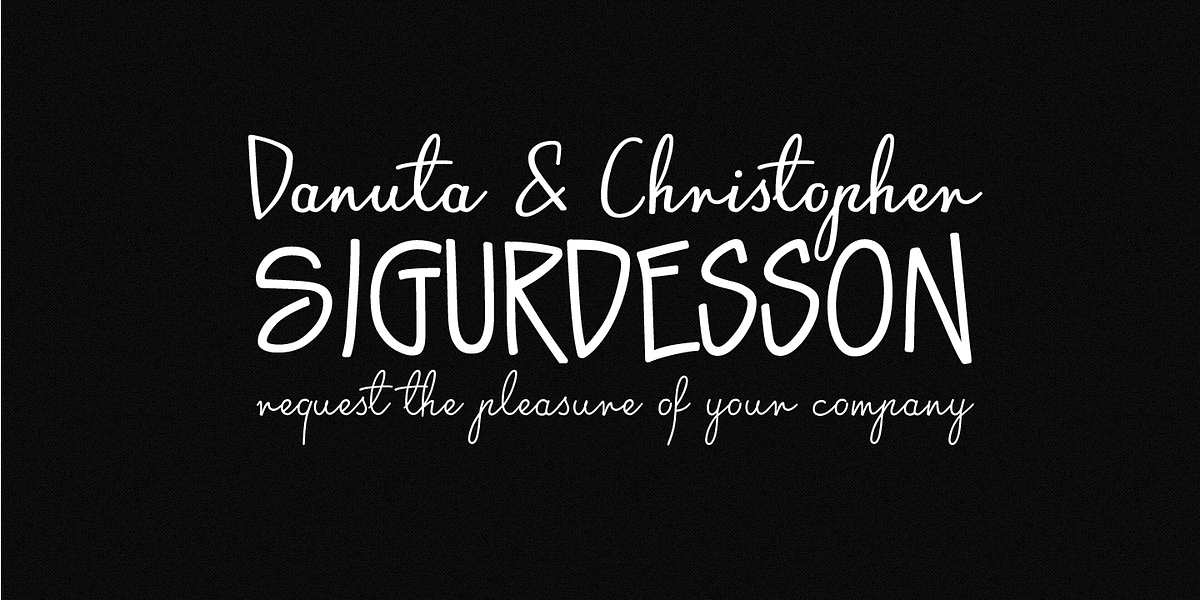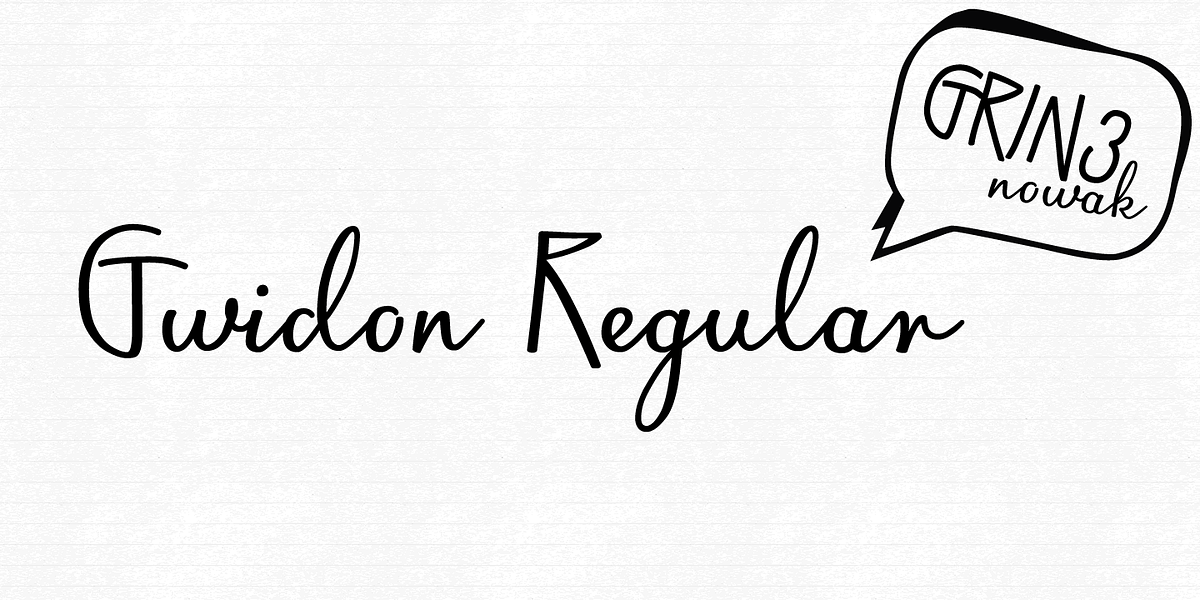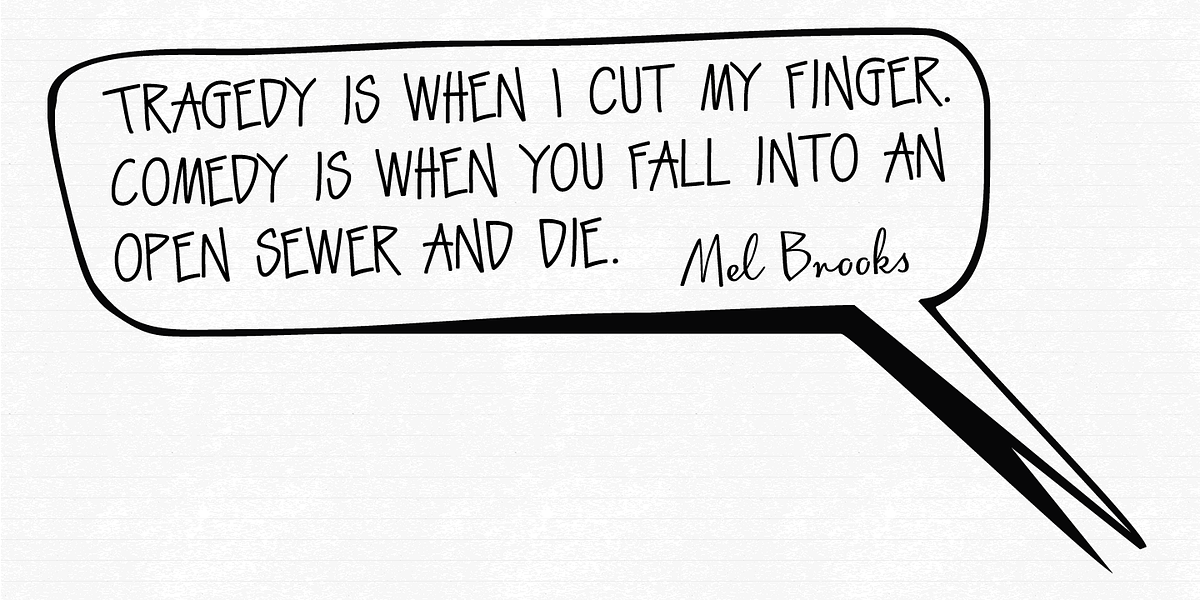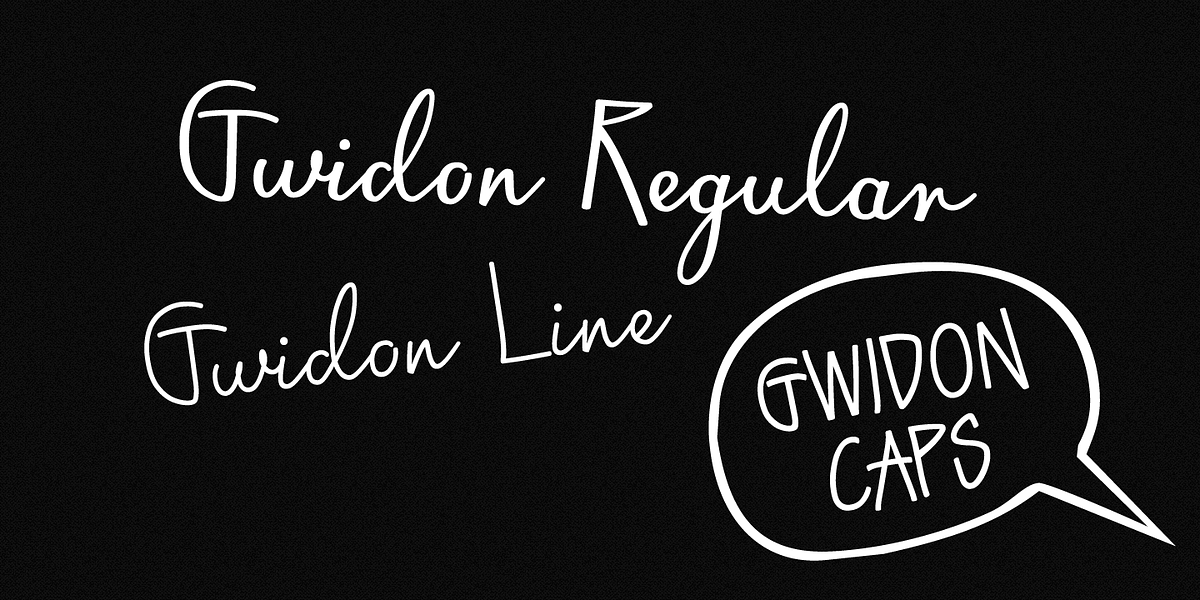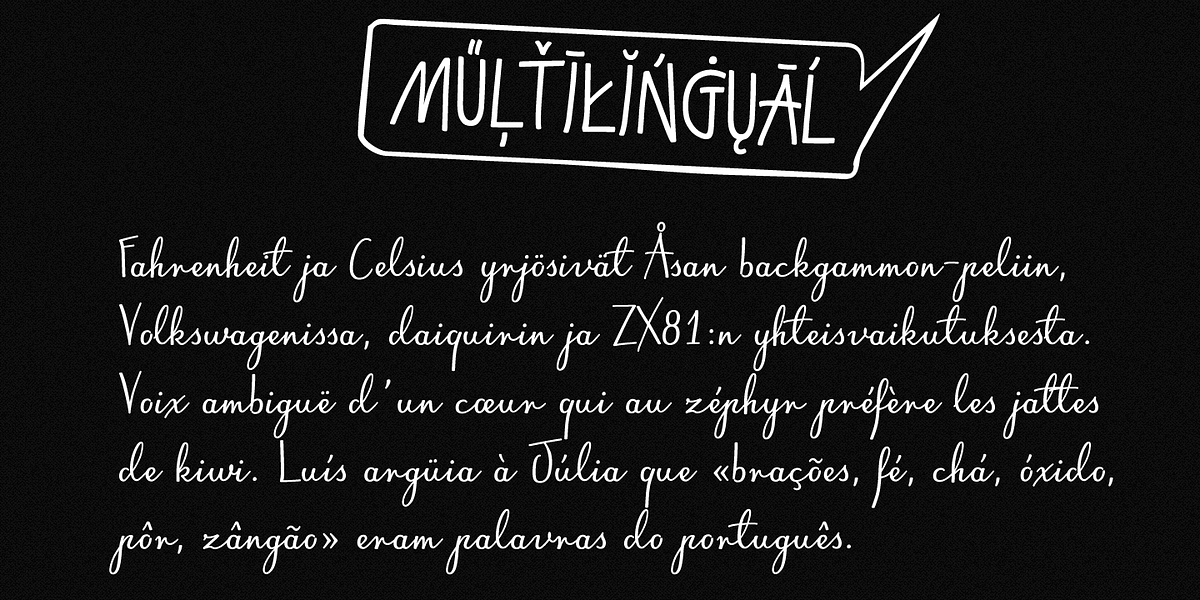
Gwidon
Gwidon is a font family consisting of three styles: Gwidon Regular and Gwidon Line, both elegant, fully connected scripts with ligatures to enhance readability and flow. The third style, Gwidon Caps, is an all-capital letter font offering two variations for each letter accessible through upper and lower keyboard keys. The font supports a wide range of languages, including Western, Central and Eastern European character sets, as well as Baltic and Turkish.